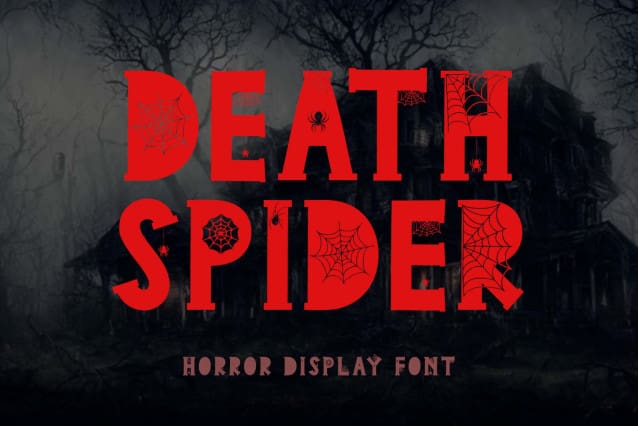
Death Spider Font
Death Spider Font is a horror and creepy display font. This font is equipped with uppercase, lowercase, numerals, punctuations, ligatures and multilingual support. Very suitable for use in Halloween, invitations, posters, banners, logos, branding, stickers, movie titles, book titles and others.